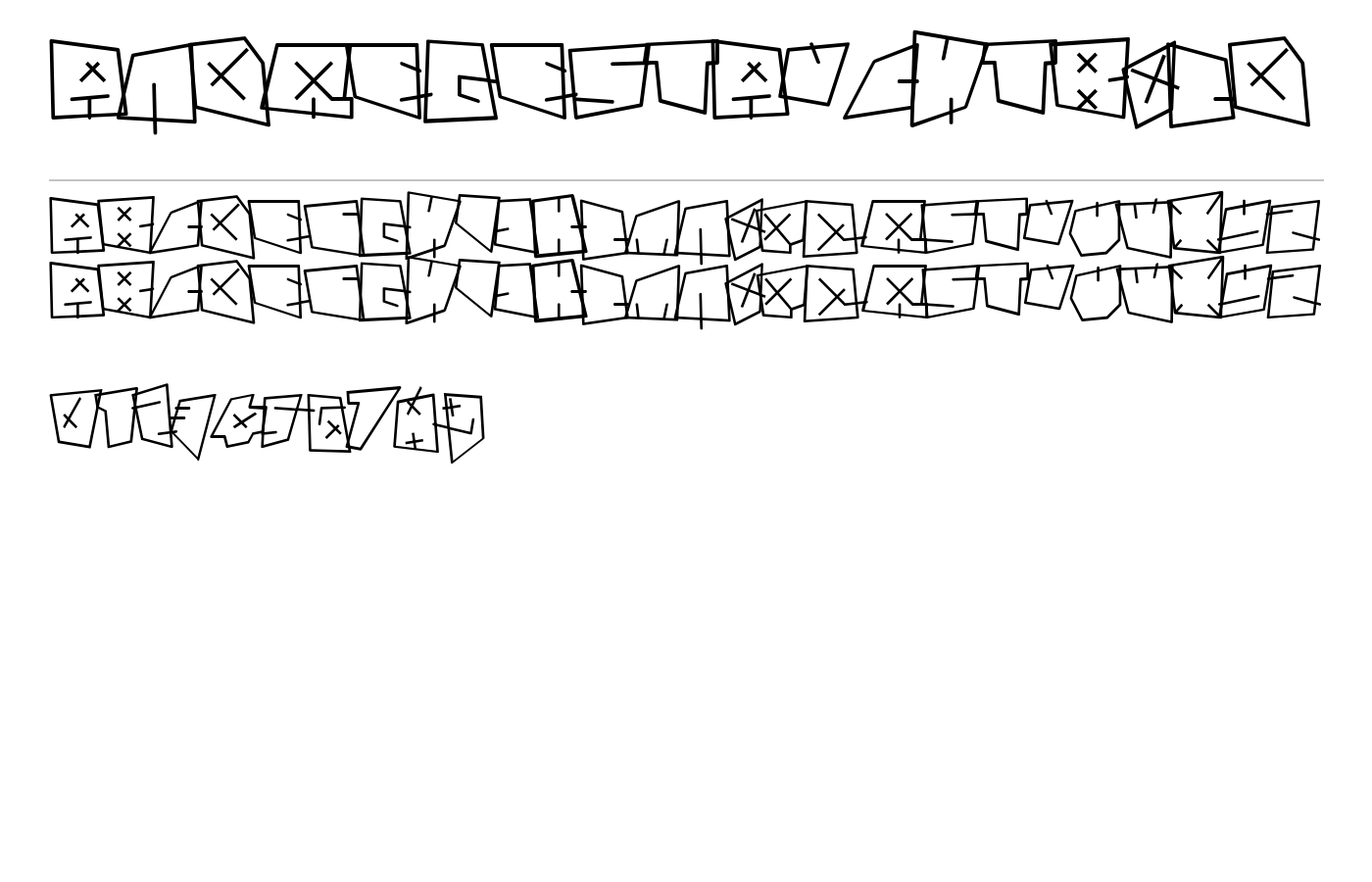
Andregestauchtbold is a bold, playful display font with a quirky, hand-drawn style characterized by irregular, boxy letterforms and intersecting lines that create a unique, artistic look. Its geometric, uneven shapes and strong visual personality make it ideal for eye-catching headlines, creative posters, or branding that seeks to convey a fun, unconventional vibe. This font stands out in designs needing a bold and distinctive touch rather than traditional readability.